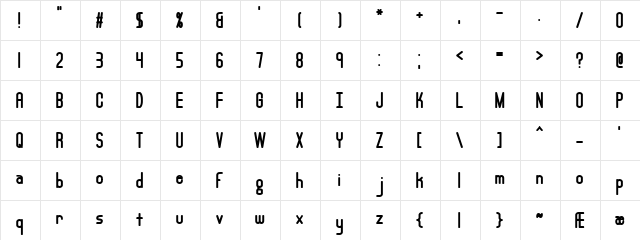
Lucid Type A (BRK) Regular
Design Context for Lucid Type A (BRK) Typeface
Lucid Type A (BRK) is a composed and adaptable typeface that performs quietly and consistently across a wide range of design contexts.